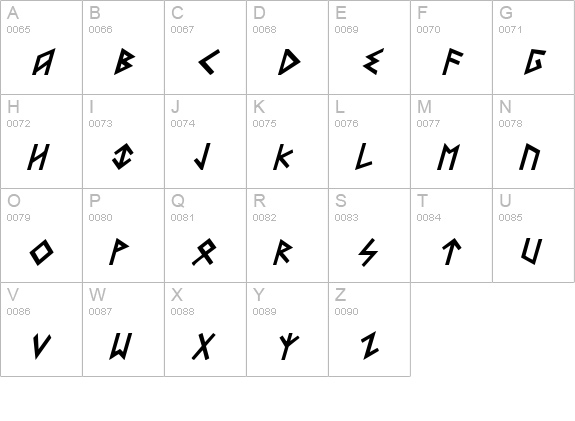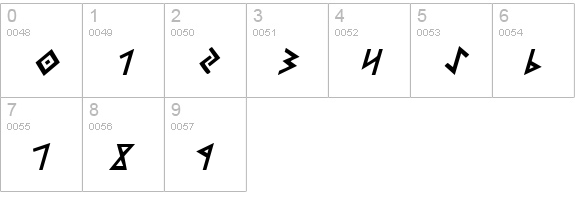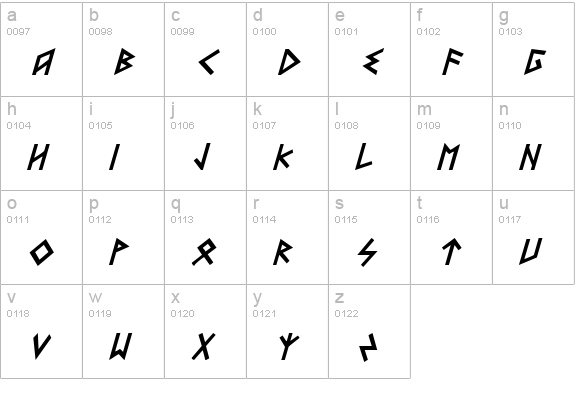
Heorot Italic Font Details
Heorot Italic is a distinctive, italic variant in the Heorot typeface family \xE2\x80\x94 well suited to design and typography projects.
Heorot Italic font exudes elegance and sophistication with its sleek, slanted design. Perfect for adding a touch of modernity to any project, this font embodies a sense of sophistication and style. Its italicized form adds a touch of flair and uniqueness to your text, making it stand out from the crowd. The best part? Heorot Italic font is completely free to download at FontsMarket.com. Now you can elevate your designs without breaking the bank. Don't miss the opportunity to add this stunning typeface to your collection and bring a touch of class to your projects. Download Heorot Italic font today and let your creativity soar!